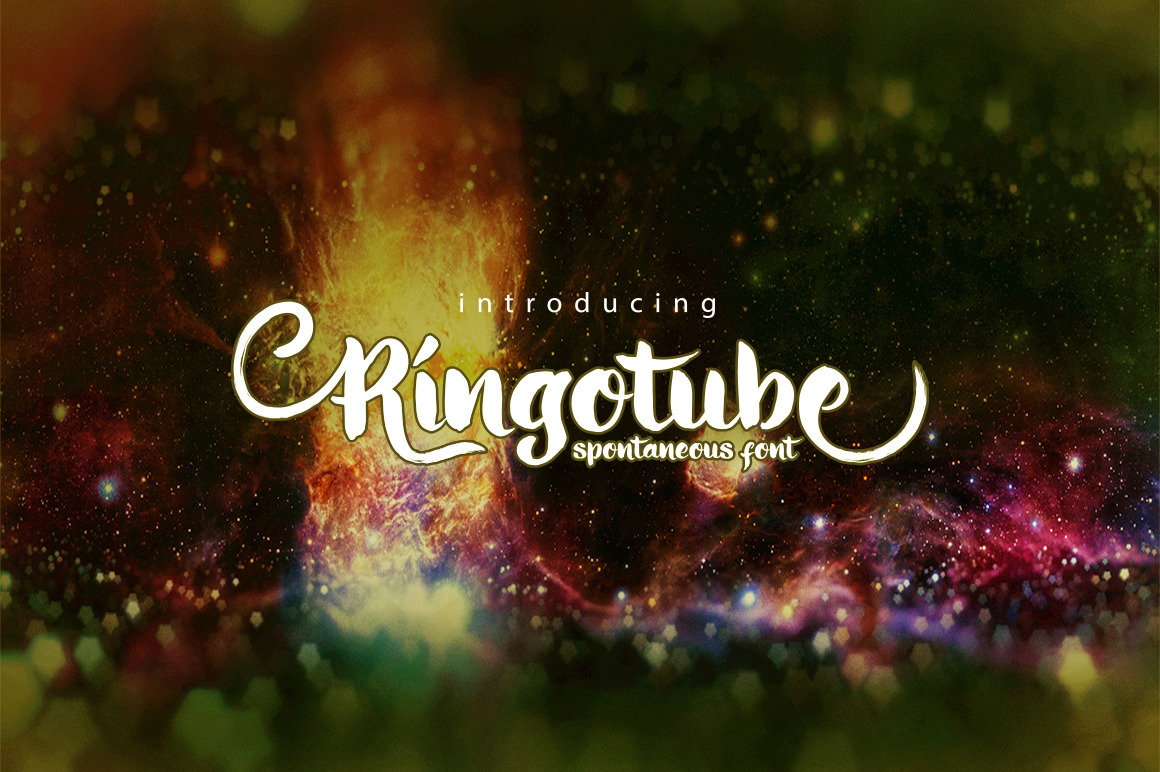
Ringotube Font
Ringotube font is a handwriting script style font. It is brush typeface with a very naturally hand written look. Ringotube beautifully and looks like freshly handmade for wedding card, logotype, branding project, webside header, product packaging, fasion design and Your any creative project.
Ringotube features : Characters set A-Z, a-z, Numerals & Puctuations (OpenType Standard), Accents (Multilingual characters), Alternates, Ligatures, and Swash.